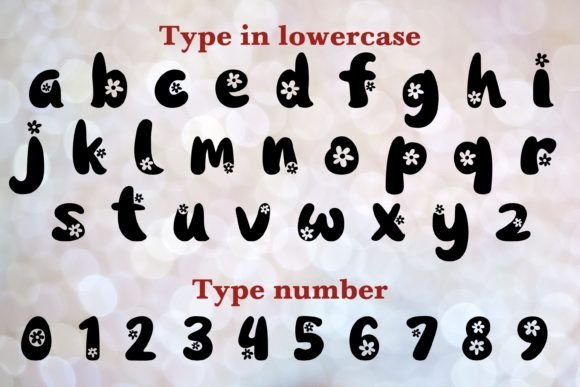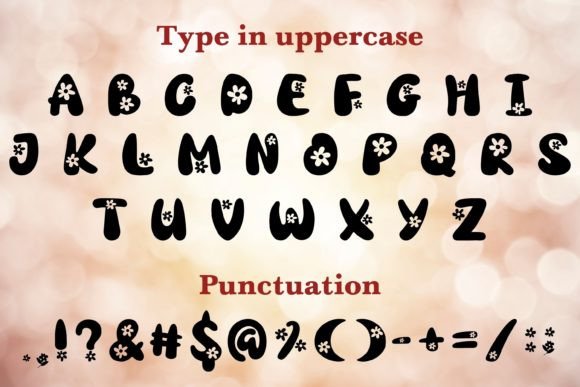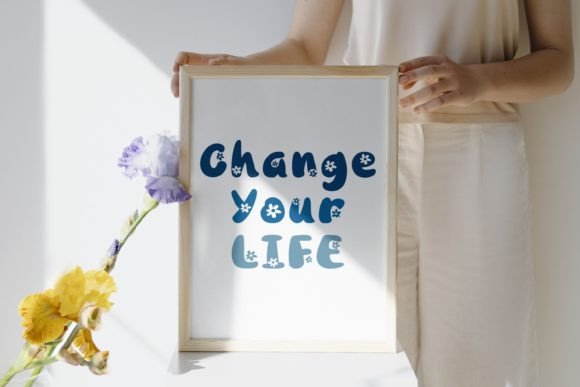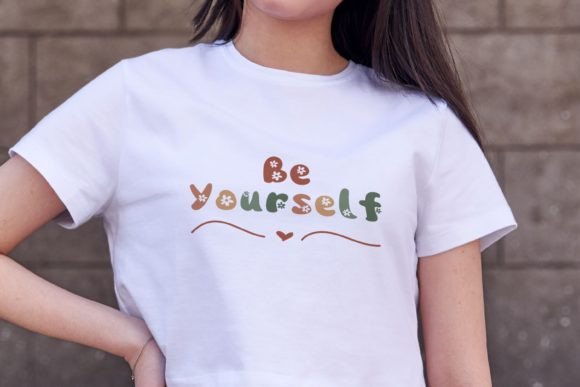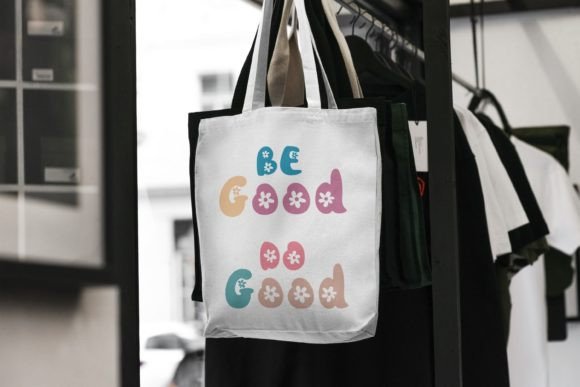
Introducing Flower Bloom Font: The Perfect Addition to Your Design Arsenal
Are you a designer or crafter looking for a font that can add a playful and cheery touch to your projects? Look no further than Flower Bloom Font! This adorable decorative font is ideal for crafting and can be used to create a wide range of designs, from book covers to posters, packaging, merchandise, logotypes, and more.
What is Flower Bloom Font?
Flower Bloom Font is a unique and charming font that features beautiful, blooming flowers in its design. The font is carefully crafted to provide a whimsical and playful feel, making it perfect for designers and crafters who want to add a personal touch to their work. With its delicate and intricate details, Flower Bloom Font is sure to capture the attention of your audience and leave a lasting impression.
Key Features of Flower Bloom Font
- Cute and Decorative: Flower Bloom Font is a decorative font that features cute and colorful flowers, making it perfect for designs that need a playful touch.
- Highly Versatile: This font can be used for a wide range of design projects, including book covers, posters, packaging, merchandise, logotypes, and more.
- Unique and Eye-Catching: The font’s unique design and delicate details make it stand out from other fonts, ensuring that your designs will be noticed.
Uses of Flower Bloom Font
Flower Bloom Font is a versatile font that can be used for a variety of design projects. Here are some ideas to get you started:
- Book Covers: Add a touch of whimsy to your book covers with Flower Bloom Font. It’s perfect for romance, children’s, and young adult books.
- Posters: Create eye-catching posters for events, promotions, or advertisements with Flower Bloom Font.
- Packaging: Add a personal touch to your product packaging with Flower Bloom Font. It’s perfect for food, beauty, and lifestyle products.
- Merchandise: Create unique and eye-catching merchandise, such as t-shirts, mugs, and tote bags, with Flower Bloom Font.
- Logotypes: Use Flower Bloom Font to create a custom logotype for your brand or business.
Tips for Using Flower Bloom Font
Here are some tips for getting the most out of Flower Bloom Font:
- Use it Sparingly: While Flower Bloom Font is beautiful, it can be overwhelming if used excessively. Use it sparingly to add a touch of whimsy to your designs.
- Pair it with Other Fonts: Pair Flower Bloom Font with other fonts to create a unique and visually appealing design.
Flower Bloom Font is a beautiful and versatile font that can add a playful and cheery touch to your designs. With its delicate details and whimsical feel, it’s perfect for designers and crafters who want to create unique and eye-catching designs. Whether you’re working on a book cover, poster, packaging, merchandise, or logotype, Flower Bloom Font is sure to be a great addition to your design arsenal.